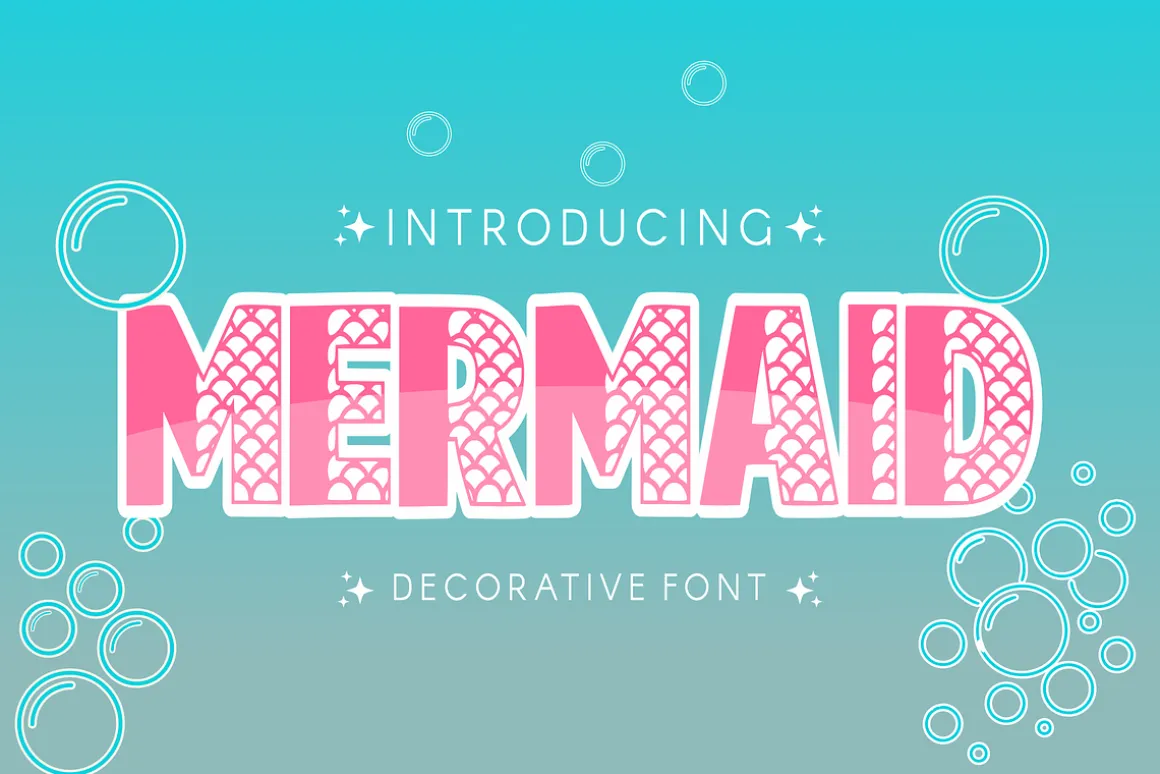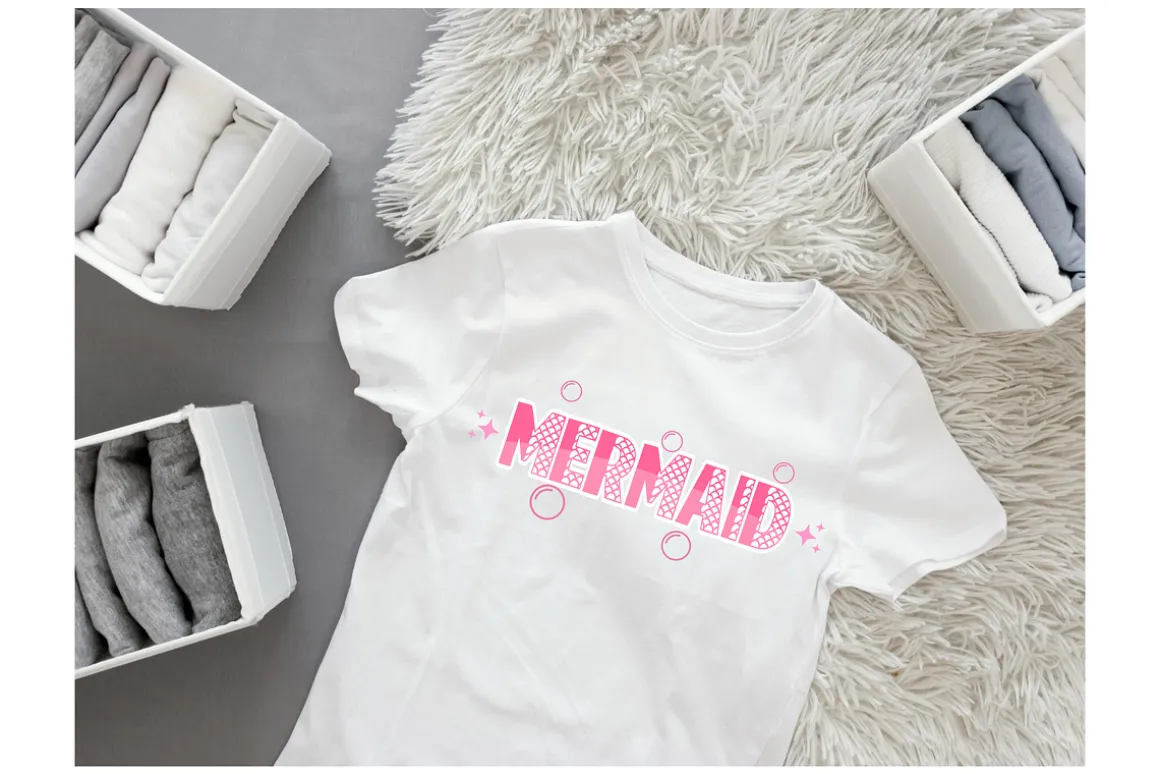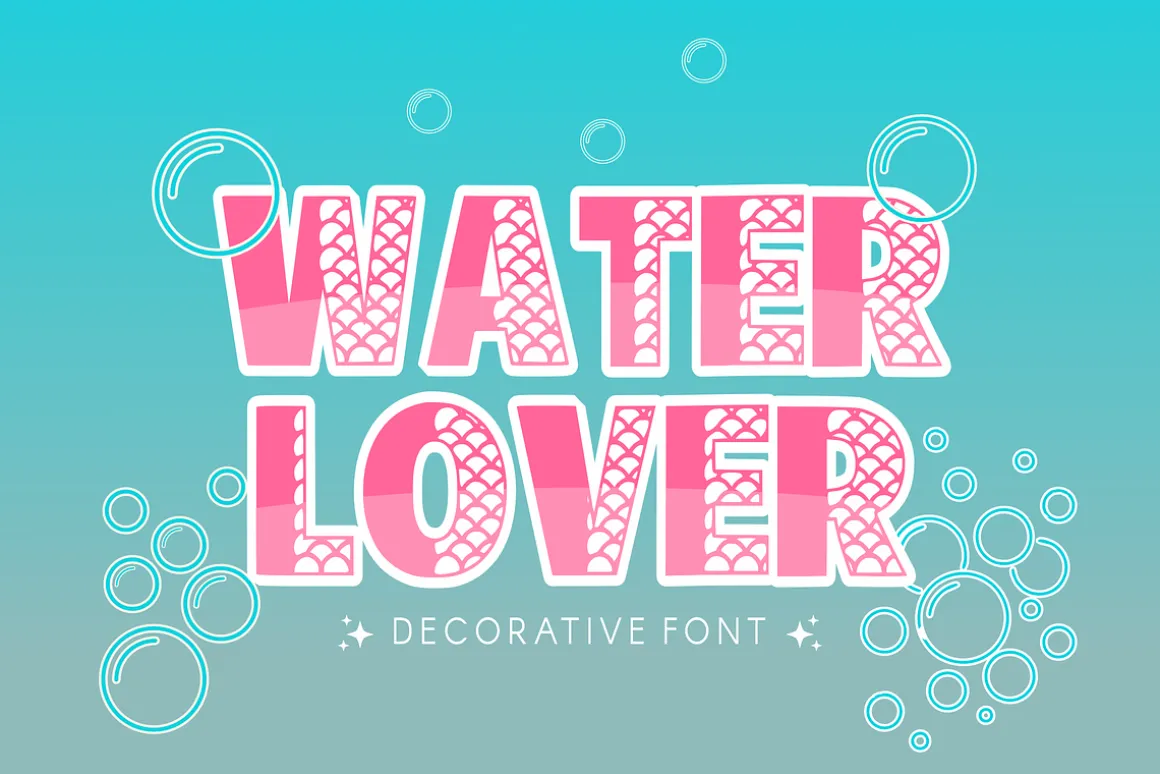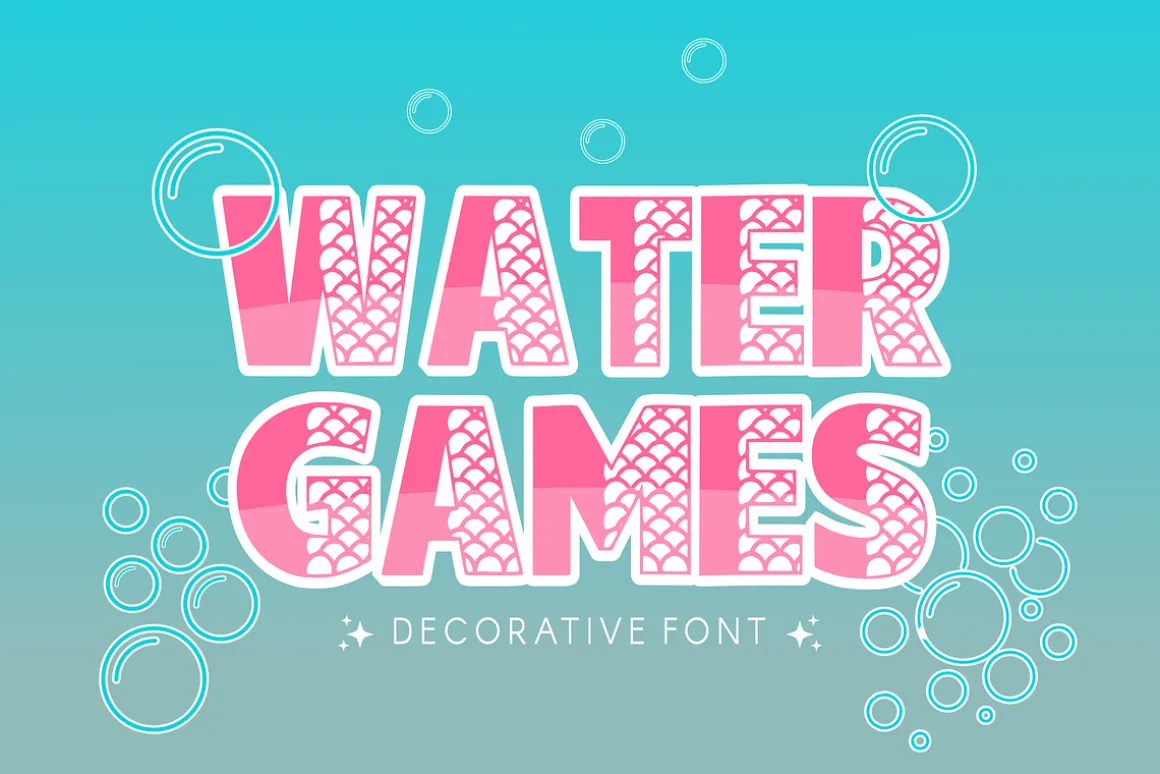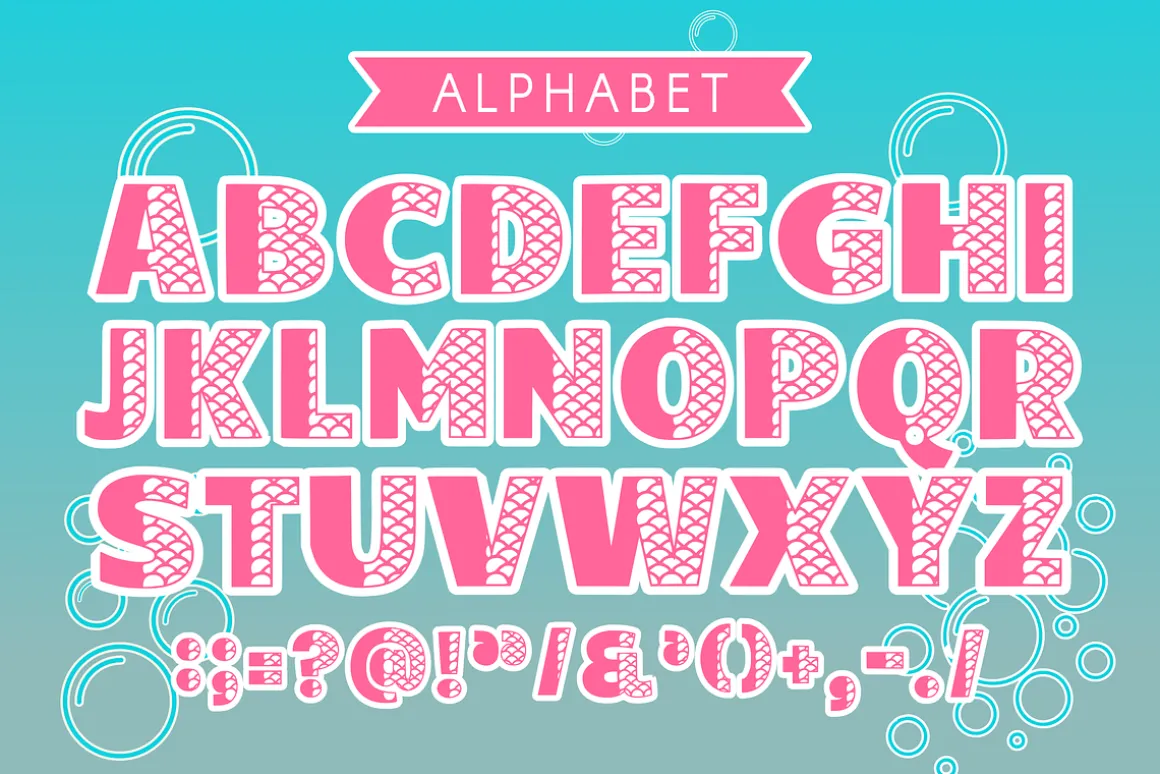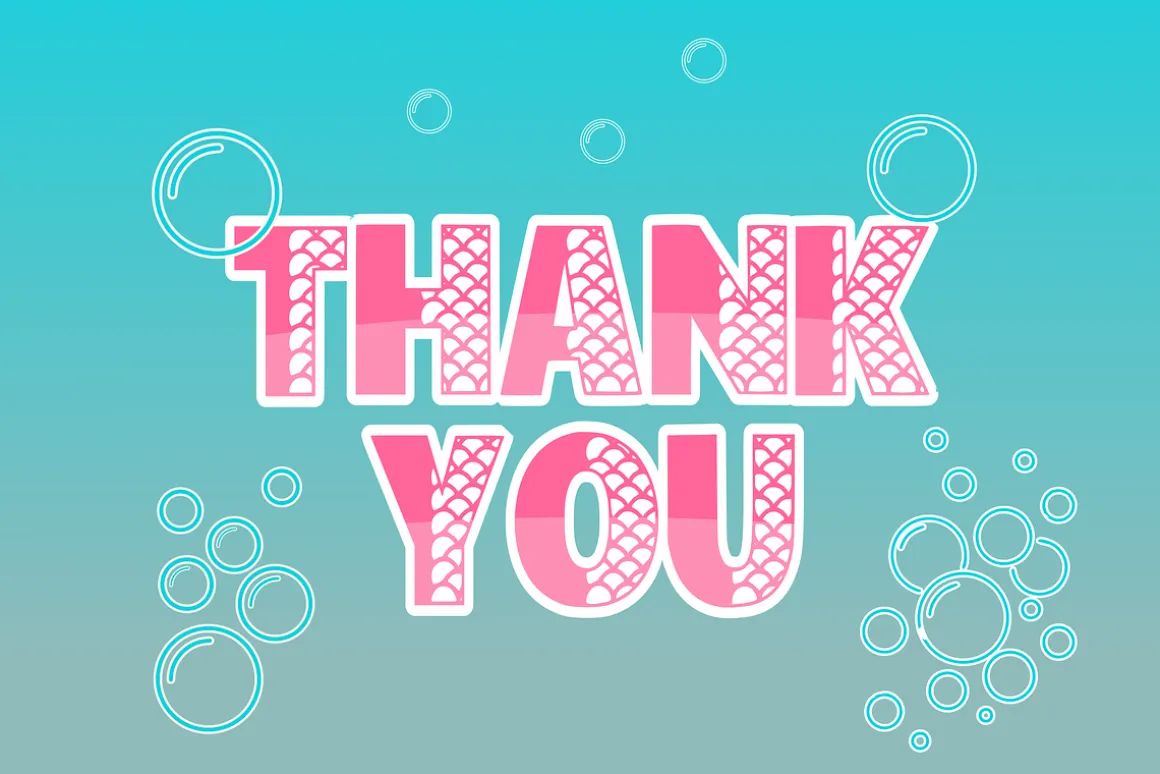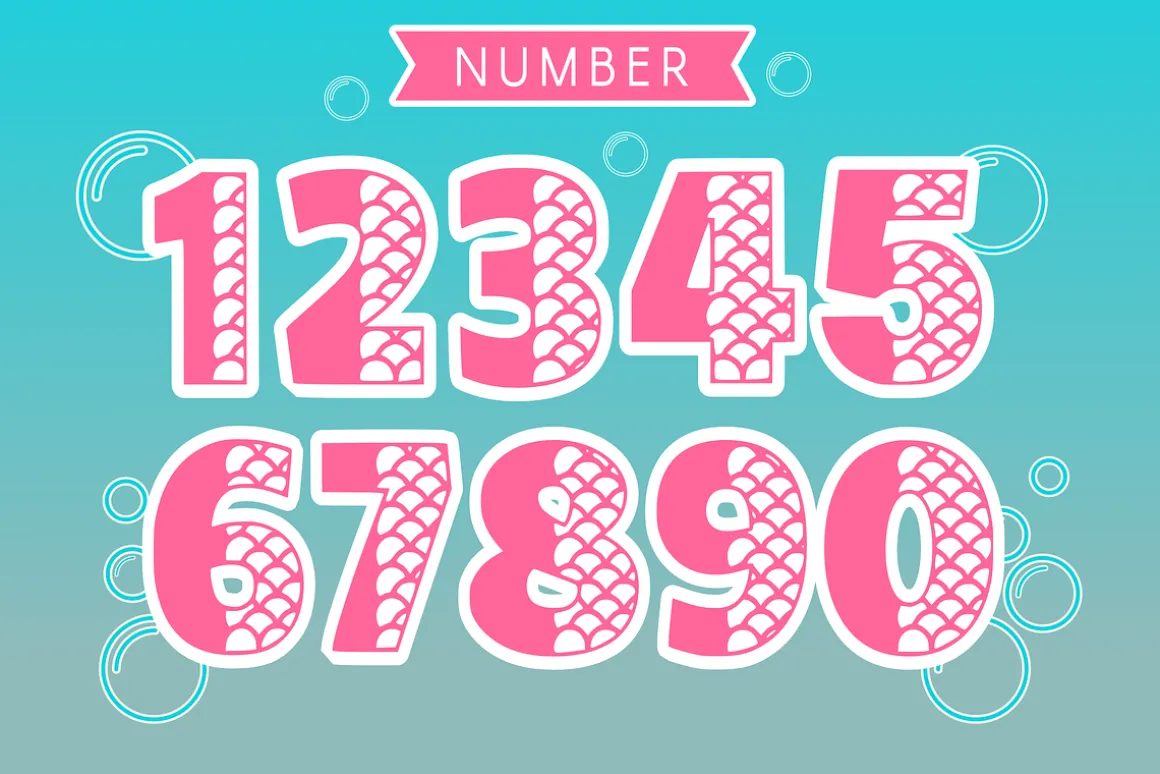
Discover “MERMAID”, a delightful font bursting with character. The whimsical charm of this font, featuring scaly letters, radiates off each character, making it an idyllic choice for comic book headers, expressive greeting cards, captivating movie titles, or lively animations. With a playful appeal, “MERMAID” offers a fresh perspective, adding a mystical, undersea touch to your creative endeavours. Experience the magic of “MERMAID,” a font that takes your project from ordinary to extraordinarily enchanting!